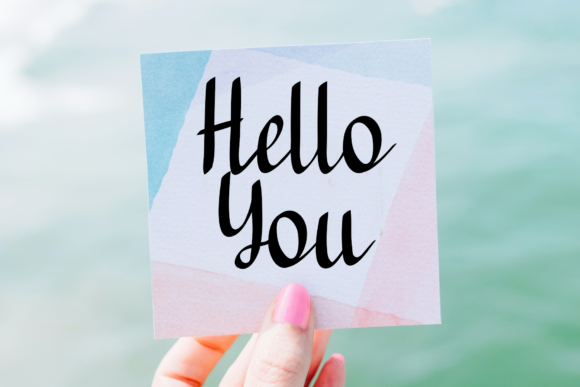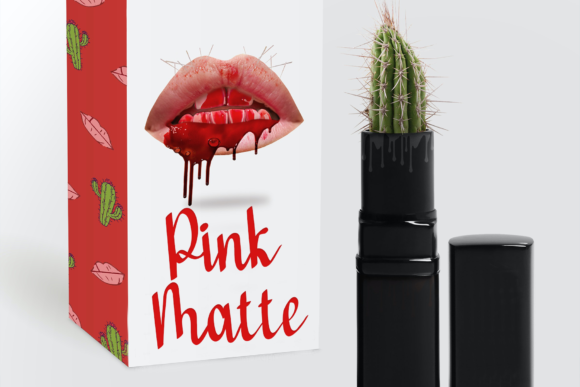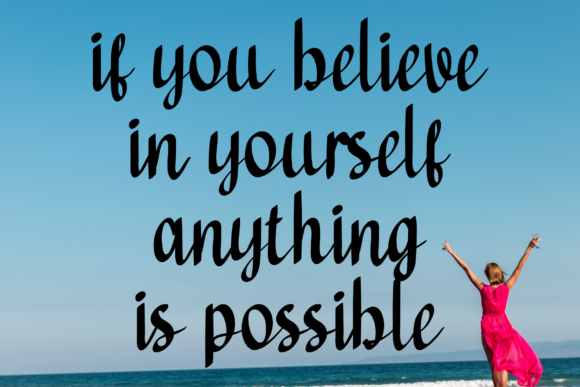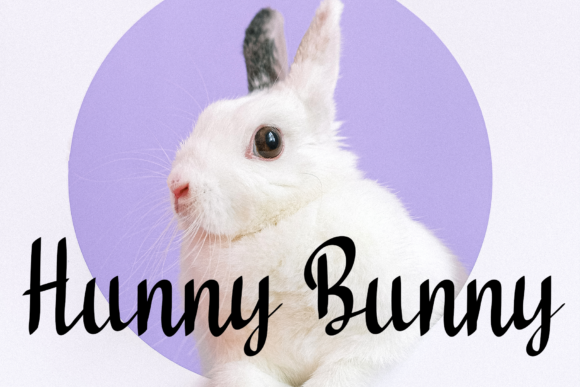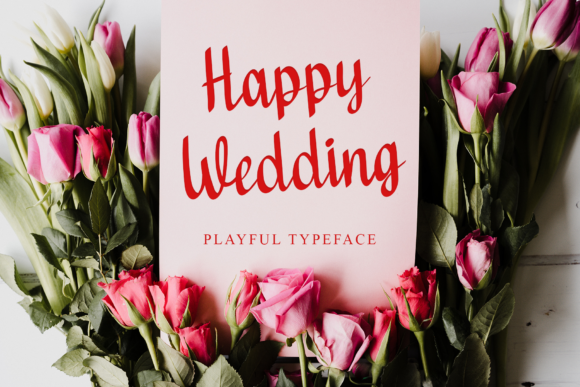
Buttercake Font
About Buttercake Font
Buttercake is a casual handwritten font. Use this font for with your designs and explore its endless possibilities.